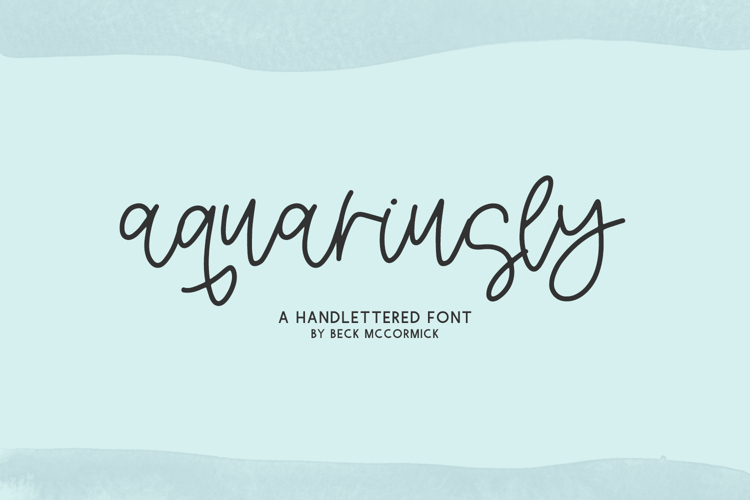
Introducing Aquariusly, a bouncy monoline script.
Aquariusly is best for:
- feminine, crafty projects with your Cricut or Silhouette machine, or your SVG design business
- farmhouse decor and crafts
- digital planners & apps like Goodnotes
- website design + website accents, blog design
- feminine graphic tee shirt design & other apparel